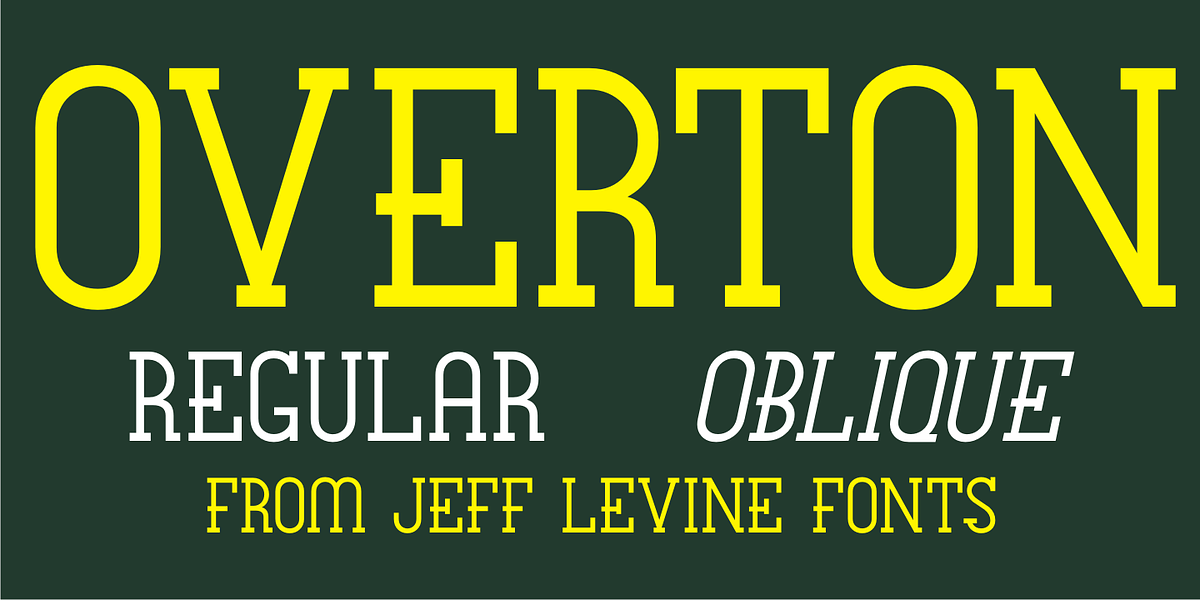
Overton JNL
Overton JNL is based on some of the preliminary letter designs by Rudolf Wolf which evolved into his 1929 type design Memphis and is available in both regular and oblique versions.